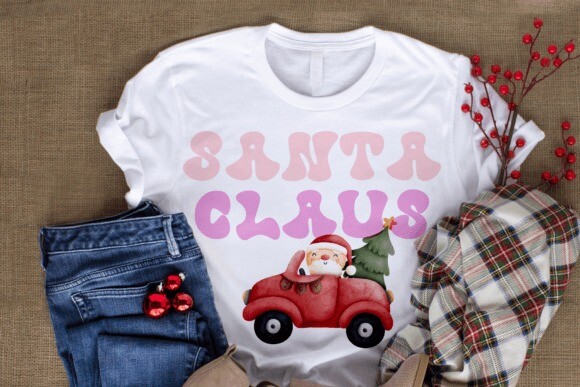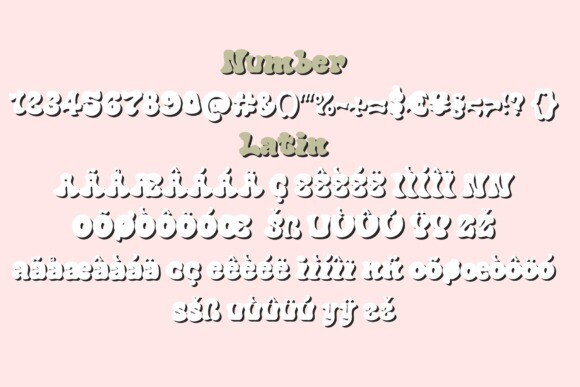
Reindeer Christmas Font
Reindeer Christmas Font is a wavy, whimsical, and uniquely shaped display font. Trendy and stylish, this font will elevate each of your creations. The Christmas reindeer are PUA encrypted, meaning you can access all the characters and dashes easily!